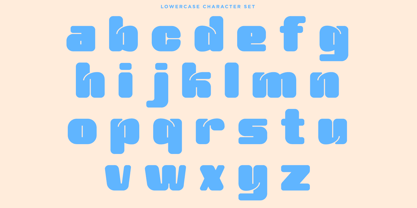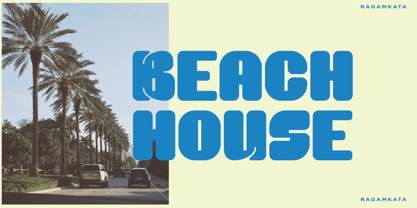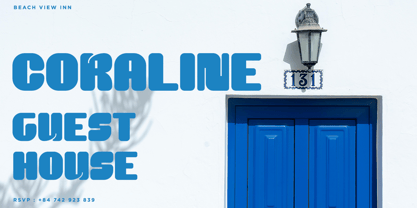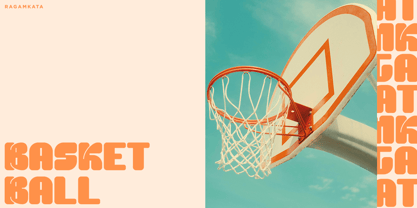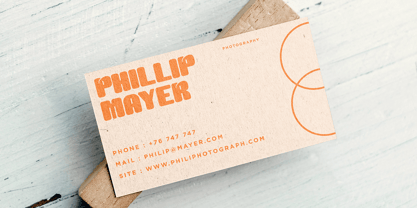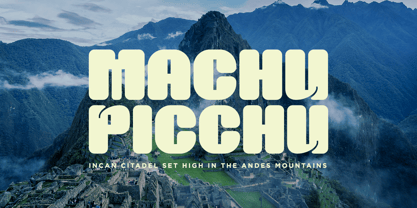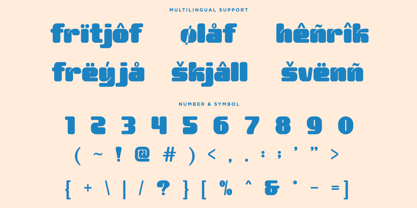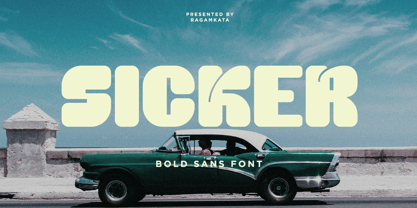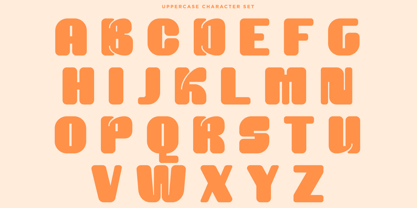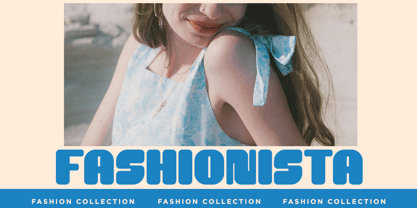
Sicker
The Sicker Font Family was designed by Yogiswhara Dio Prakoso Riadi and published by RagamKata. Sicker contains 1 styles. More about this family
Sicker is a bold sans font for brand identity. Sicker created with the vision of to attract the audience to your brand . The finest details of this typeface are methodically and mathematically created. Sicker is created with all the tasks of a corporate font and also for the usage in a variety of projects, including branding, logos, titles, headlines, servers, posters, screens, display, digital ads, and everything else.